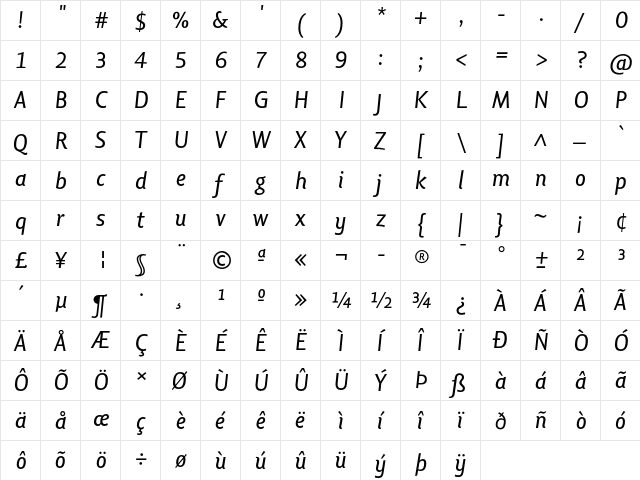
Lisboa LF Italic
Design Context for Lisboa LF Typeface
Lisboa LF offers clean, dependable letterforms without strong stylistic allegiance, making it a practical choice for designers who need flexibility. Its italic angle brings a sense of urgency and motion to the letterforms.
Pro Tip: Use Lisboa LF for emphasis, pull quotes, and subheadings where its slanted energy can add rhythm to the layout.